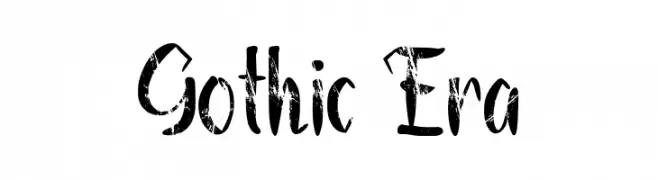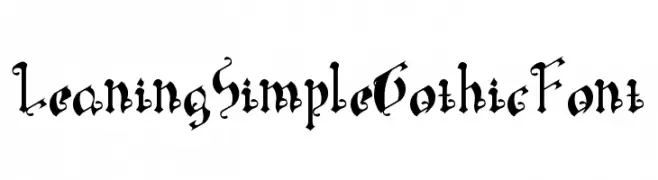
A traditional blackletter font with ornate, angular strokes and a gothic aesthetic.
A bold, blackletter font with sharp, angular lines and a historical Gothic style.
An ornate Blackletter font with intricate flourishes and a gothic style.
A traditional Blackletter font with intricate detailing and gothic elegance.
A bold, ornate Blackletter font with intricate, gothic styling.
A classic Gothic font with ornate, high-contrast letterforms.
A bold, Gothic-style font with sharp, angular lines and a modern twist.
A bold, gothic-style font with ornate, angular characters.
A bold, gothic-inspired font with sharp serifs and a strong vertical emphasis.
A bold, intricate Gothic-style font with modern flair and dramatic curves.
A bold, angular Gothic-inspired font with a modern twist.
A bold, Gothic-inspired font with sharp, angular edges and intricate detailing.
An ornate, Gothic-inspired typeface with intricate decorative elements.
A decorative, gothic-inspired font with intricate detailing and ornamental frames.
A bold, Gothic-inspired font with ornate, decorative frames around each character.
A bold and ornate blackletter font with intricate details, ideal for gothic-themed projects.
A bold, decorative Gothic-style font with sharp, angular features.
A bold, spiked, gothic decorative font with extreme visual impact.
A bold, gothic-inspired decorative font with sharp, spiky details.
Ornate blackletter font with bold, angular forms and medieval character.
A bold, gothic display font with spiderweb embellishments and sharp, dramatic forms.
A bold, jagged, root-inspired decorative font with a gothic, eerie feel.
A quirky, gothic display font with twisted, whimsical serifs.
A bold, gothic display font with skull embellishments.
A bold, gothic display font with devilish horns and tails.
A bold, Gothic-style font with intricate, angular detailing.
An ornate Gothic-style font with decorative borders and intricate details.
A bold, Gothic-style font with dramatic, ornate characters.
A bold, Gothic-style font with intricate detailing and a modern twist.